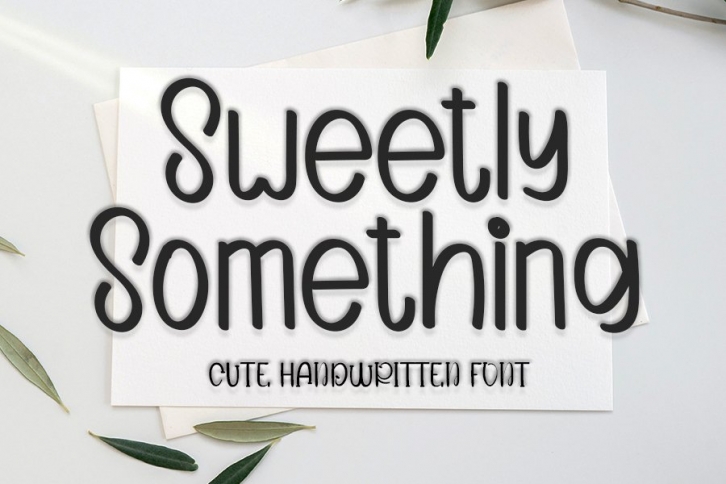
Sweet Something is a great font that was designed by FreshType INK. Imagine the amount of combinations you can create using this font! The archive is 19.66 MB and it was released on March 27, 2021. Sweet Something looks beautiful on wedding invitations, greeting cards, logos, posters, labels, t-shirt designs, logos, business cards and is perfect for use in ink or watercolor works, fashion, magazines, packaging and food menus, children's books and more!